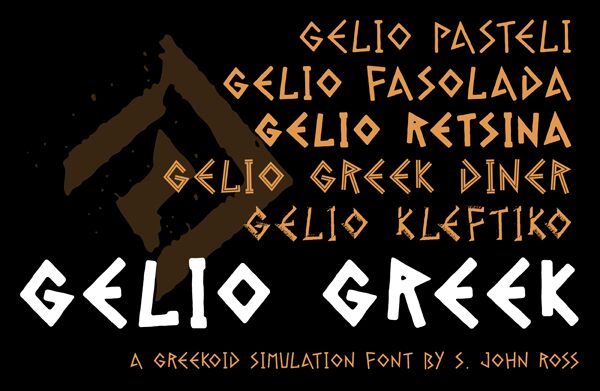
Gelio Pasteli by S. John Ross is a free graffiti display font with the angular look of scratched lettering. Tall capitals shift between blunt curves, sharp corners, and abrupt changes of direction. Uneven widths and a loose baseline keep the alphabet raw and restless.
The jagged strokes echo marker drawings and rough urban illustration in poster designs. It also suits music merchandise and skate branding. There the irregular letters become part of the artwork for audiences drawn to punk, street, and DIY culture.